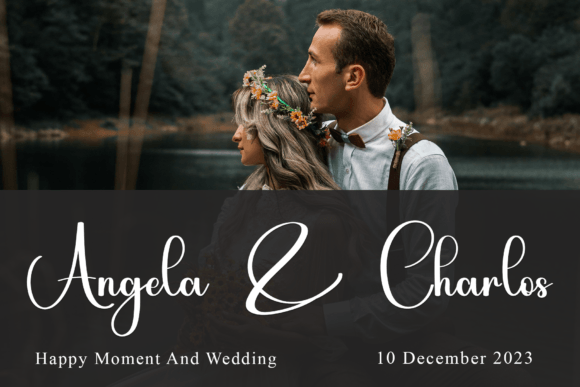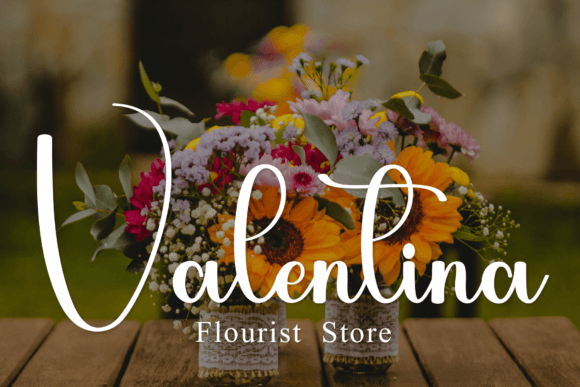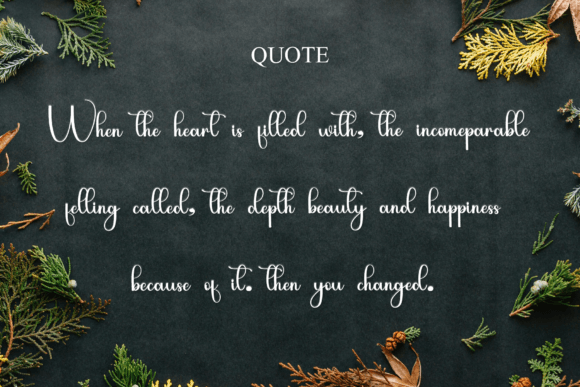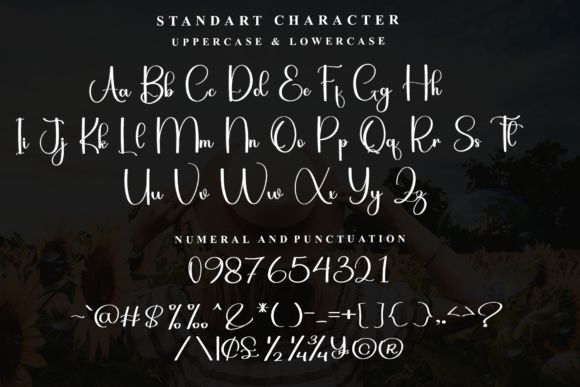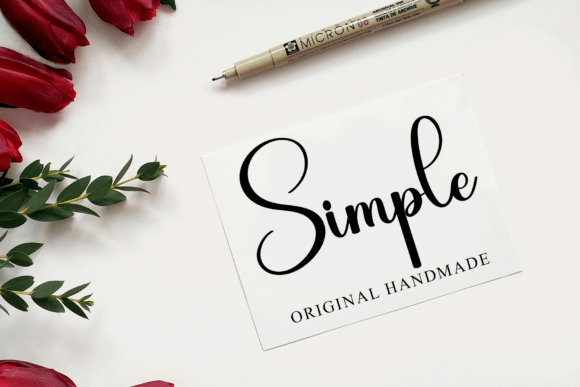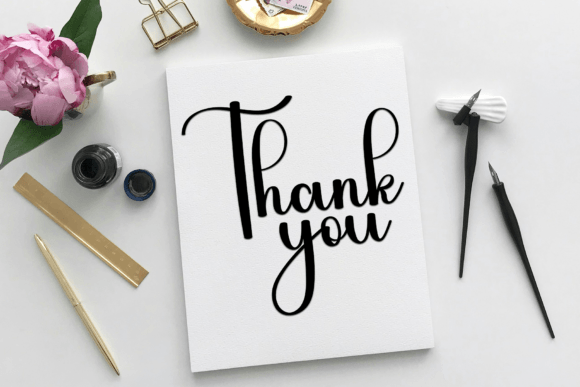
Introducing Buffalo Font: A Festive and Happy Typeface for the Holiday Season
The holiday season is upon us, and what better way to get into the spirit than with a font that’s as festive and happy as you are? Look no further than Buffalo Font, a decorative typeface that’s perfect for adding a touch of charm to your designs. Whether you’re creating greeting cards, gift labels, or holiday-themed projects, this font is sure to bring a cheerful and nostalgic atmosphere to your words.
What Makes Buffalo Font So Special?
Buffalo Font is more than just a typeface – it’s an experience. With its unique flair and decorative elements, it’s the perfect way to add some holiday magic to your designs. The font’s playful and whimsical feel is sure to evoke memories of Christmases past, making it perfect for projects that require a touch of nostalgia.
Whether you’re a professional designer or a crafter looking for a special font to use in your projects, Buffalo Font is the perfect choice. Its versatility and charm make it suitable for a wide range of applications, from holiday greeting cards and gift tags to festive posters and social media graphics.
One of the best things about Buffalo Font is that it’s PUA (Private Use Area) coded, which means you can access all the amazing glyphs and ligatures easily. This makes it simple to add special characters and flourishes to your designs, taking them to the next level. With PUA coding, you can:
- Easily access and use the font’s decorative elements
- Add unique ligatures and glyphs to your designs
Use Buffalo Font for a Variety of Projects
The possibilities are endless when it comes to using Buffalo Font. Here are just a few ideas to get you started:
- Holiday greeting cards and gift tags
- Festive posters and social media graphics
- Christmas party invitations and decorations
- Handmade crafts, such as knitted or crocheted items
- Digital papers and printable art
Why Choose Buffalo Font?
With so many fonts to choose from, why should you choose Buffalo Font? Here are just a few reasons:
- Unique and decorative design that’s perfect for the holiday season
- PUA coded for easy access to glyphs and ligatures
- Versatile and suitable for a wide range of projects
- Supports a wide range of languages